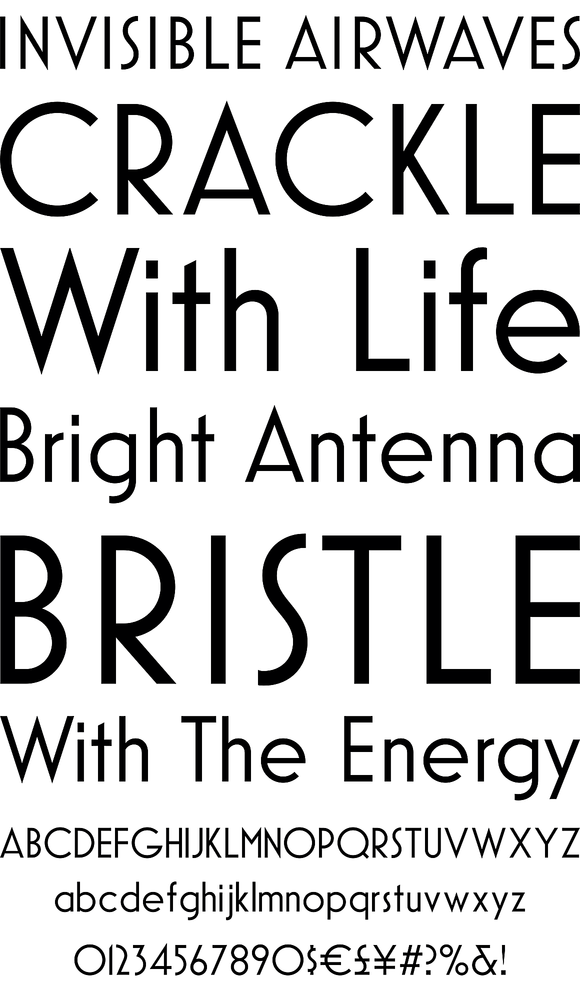
Mostra Nuova
Mostra Nuova is based on a style of lettering often seen on Italian Art Deco posters and advertising of the 1930s. Mostra Nuova contains many alternate characters, representing commonly-found variations in Italian Art Deco lettering. They can be used in endless combinations to capture a particular mood or style. There are six weights ranging from the almost invisible Thin to the ridiculously bold Black. Mostra features an extended character set (most Western and Eastern European Latin-based languages supported) and kerning tables for display setting. Mostra Nuova includes 20 stylistic sets for accessing the many alternate characters and case sensitive forms. Available exclusively in OpenType format.